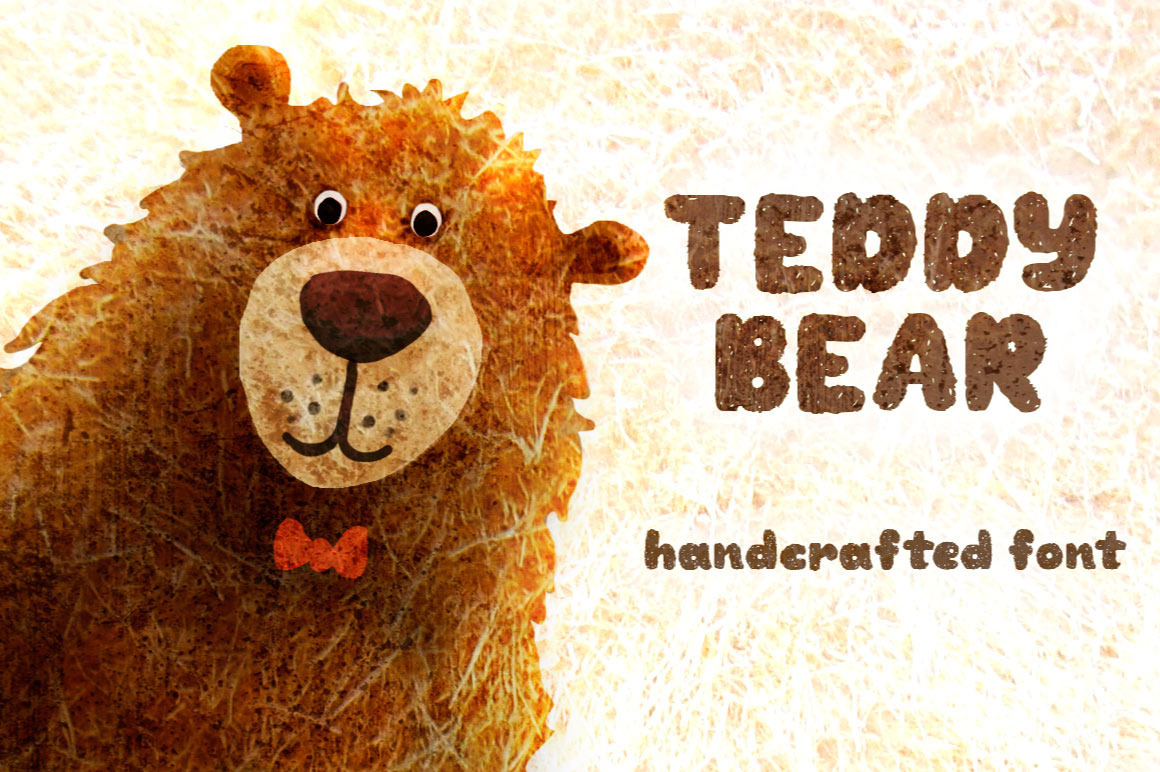
TeddyBear - handcrafted font
I'm so happy to introduce you my first font - TeddyBear. This font created by hand with ballpoint pen, then all chracters were scanned and converted to vector in Illustrator. I wanted the font to get soft, kind, friendly and textural.
When I was little I like many children had a plush bear. Designing this font I thought about my favorite, soft, big bear named Teddy.
TeddyBear is a bold font perfect for nursery projects, funny greating cards and much other where used cartoon graphic and organic texture.